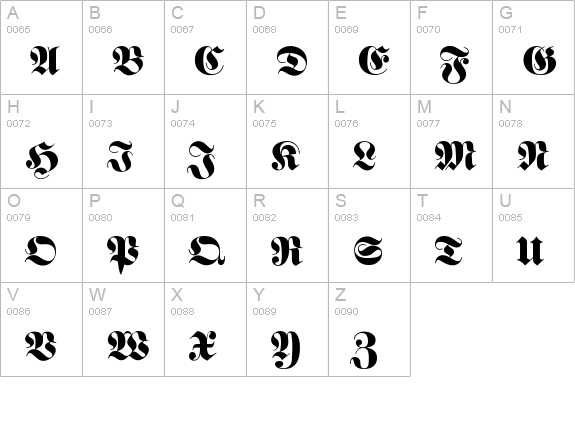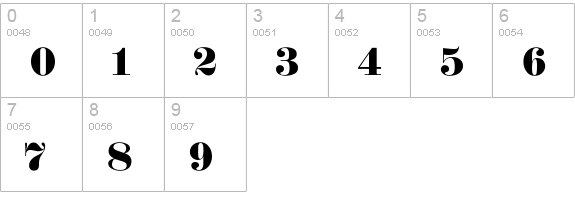
Frankenstein Ukrainian Font Details
The Frankenstein Ukrainian font is a captivating and unique typeface that combines traditional Ukrainian design elements with a modern twist. This font features intricate details and ornate flourishes that give your text a distinctive and eye-catching appearance. The Frankenstein Ukrainian font is perfect for adding a touch of elegance and sophistication to your projects, whether you're creating invitations, posters, or branding materials. Best of all, the Frankenstein Ukrainian font is available for free download at FontsMarket.com. Simply visit the website to get your hands on this stunning font and start using it in your designs today. Don't miss out on the opportunity to add a touch of Ukrainian charm to your projects with the Frankenstein Ukrainian font - download it now and let your creativity shine!